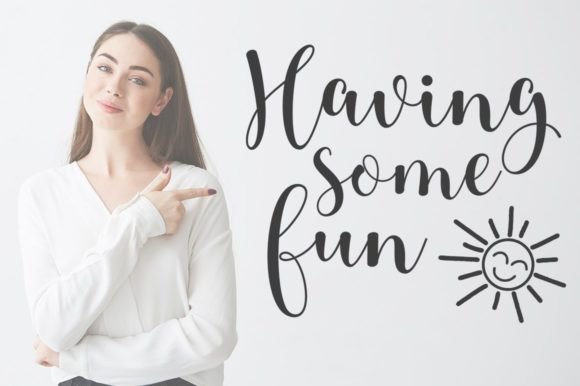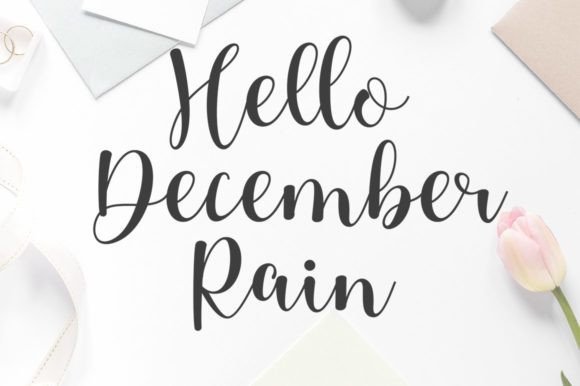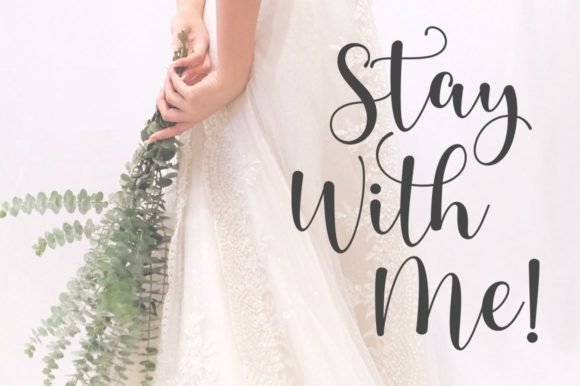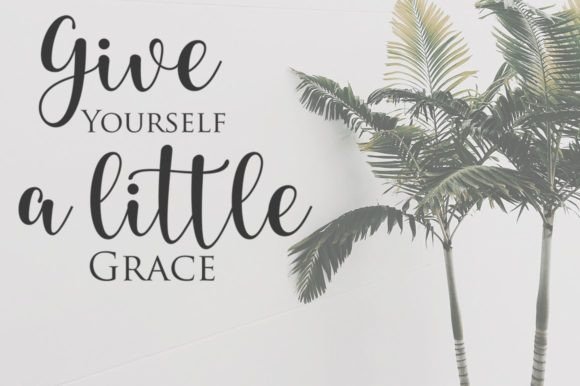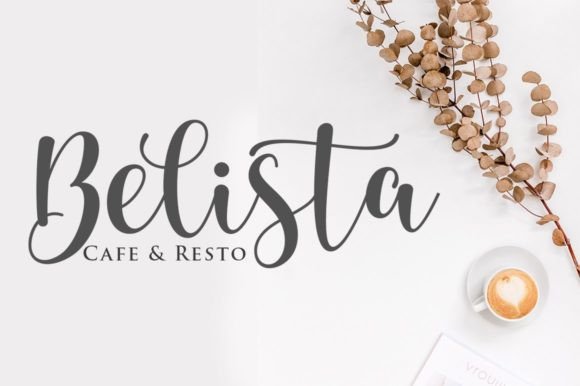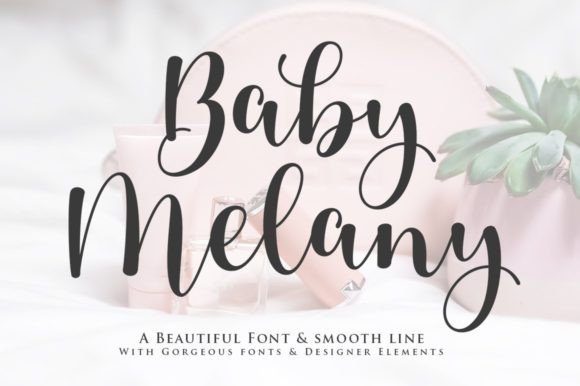
Baby Melany Font: Elevate Your Designs with Elegance and Sophistication
In the world of typography, few fonts capture the essence of femininity and romance as beautifully as Baby Melany. This exquisite handwritten font is a masterpiece of elegance, designed to add a touch of sophistication to any project. Whether you’re a designer, crafter, or simply someone who appreciates the art of beautiful typography, Baby Melany is sure to captivate your heart.
The Beauty of Baby Melany
Baby Melany is a graceful and refined handwritten font that exudes sophistication and femininity. Its delicate strokes, flowing curves, and signature-style loops create a sense of romance and elegance, making it perfect for a variety of applications. From wedding invitations and feminine branding to editorial layouts and craft projects, Baby Melany is the ideal choice for anyone looking to add a touch of luxury to their designs.
Key Features of Baby Melany
- Delicate Strokes: Baby Melany’s strokes are light and airy, giving the font a sense of whimsy and playfulness.
- Flowing Curves: The font’s curves are smooth and flowing, creating a sense of movement and fluidity.
- Signature-Style Loops: Baby Melany’s signature-style loops add a touch of elegance and sophistication to the font.
Baby Melany is a versatile font that can be used for a wide range of projects, including:
- Wedding Invitations: Add a touch of romance and elegance to your wedding invitations with Baby Melany.
- Feminine Branding: Use Baby Melany to create a feminine and sophisticated brand identity for your business.
- Editorial Layouts: Add a touch of luxury to your editorial layouts with Baby Melany’s elegant and refined typography.
- Craft Projects: Use Baby Melany to add a personal touch to your craft projects, such as handmade cards and scrapbooking.
Why Choose Baby Melany?
There are many reasons why Baby Melany is a top choice among designers and crafters. Here are just a few:
- Elegance: Baby Melany exudes elegance and sophistication, making it perfect for high-end designs.
- Femininity: The font’s feminine charm makes it ideal for projects that require a touch of whimsy and playfulness.
- Versatility: Baby Melany can be used for a wide range of projects, from wedding invitations to editorial layouts.
In conclusion, Baby Melany is a beautiful and elegant handwritten font that is perfect for designers and crafters who want to add a touch of sophistication to their projects. With its delicate strokes, flowing curves, and signature-style loops, Baby Melany is sure to captivate your heart. Whether you’re creating wedding invitations, feminine branding, or editorial layouts, Baby Melany is the ideal choice. So why wait? Download Baby Melany today and elevate your designs with elegance and sophistication.